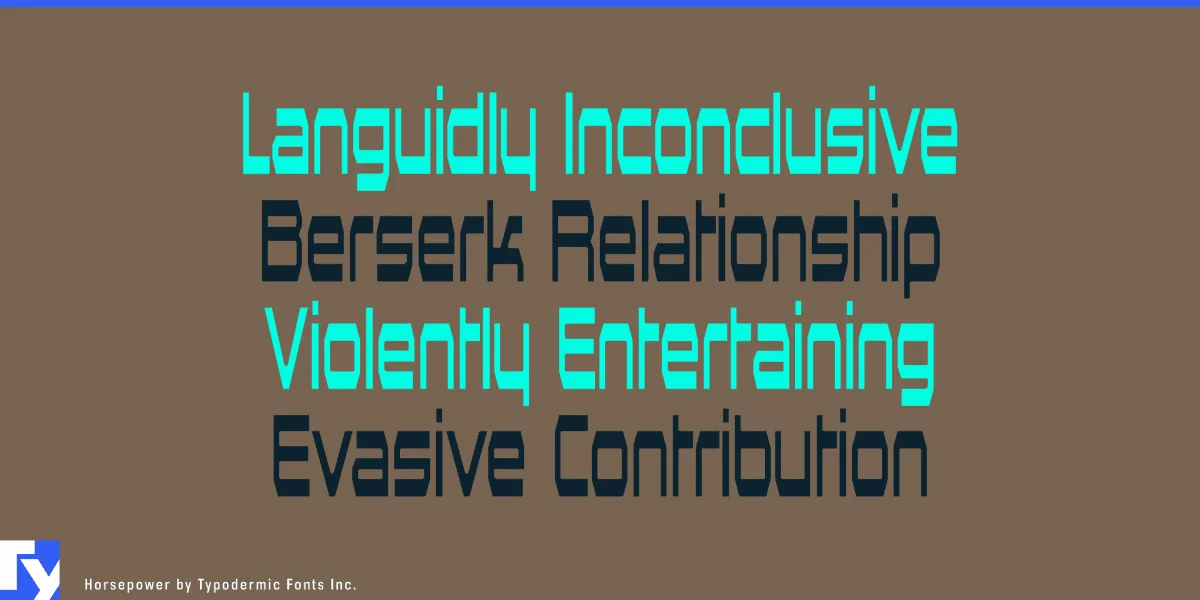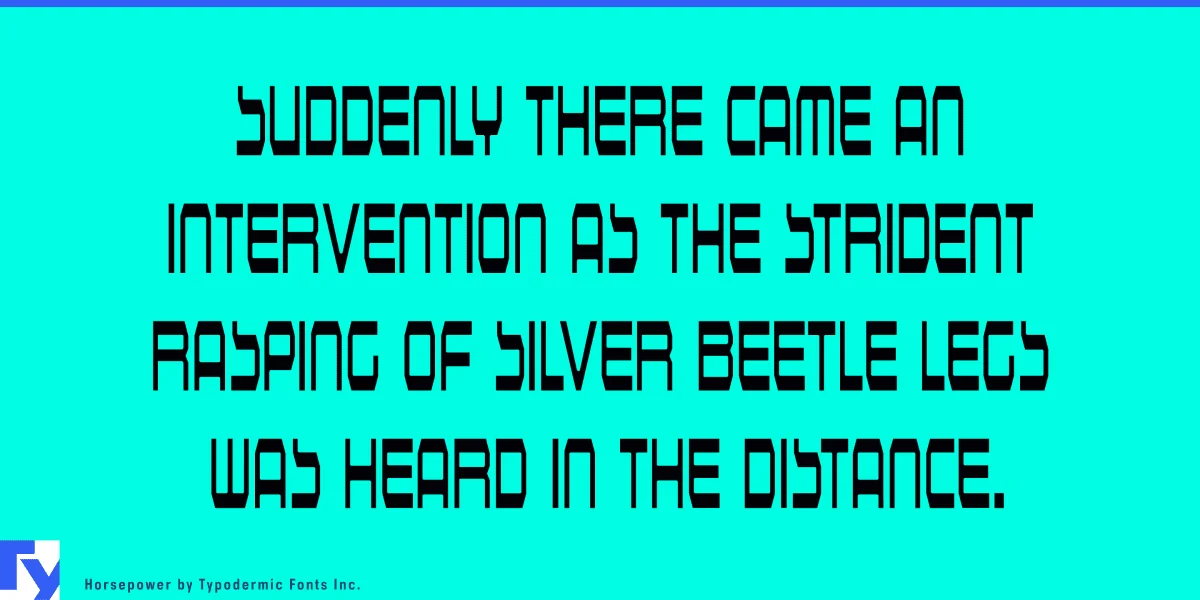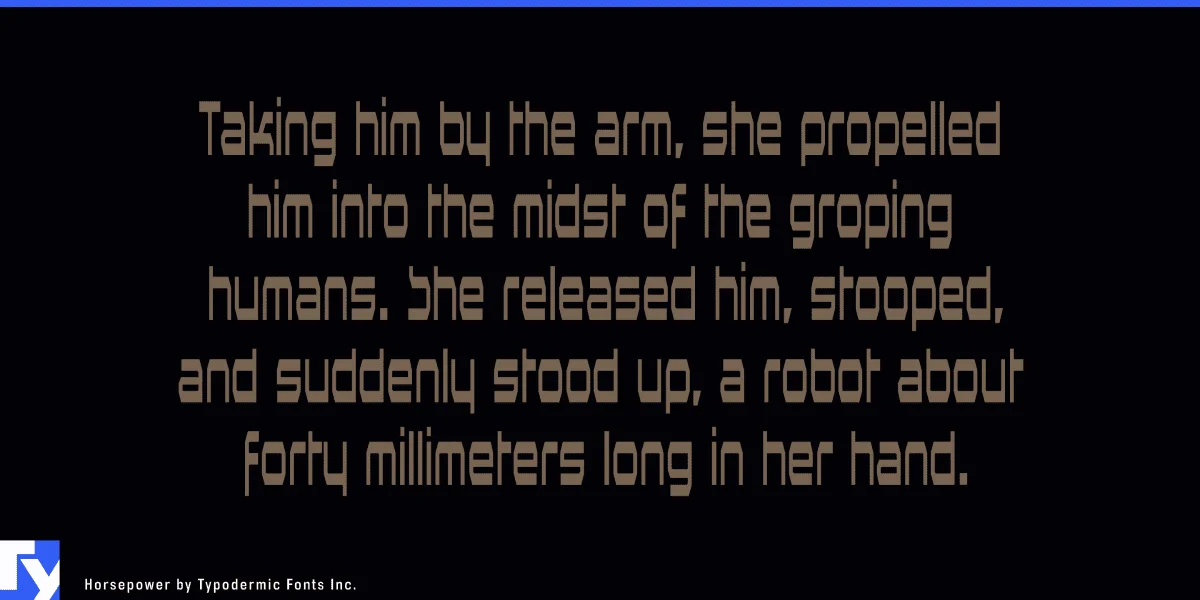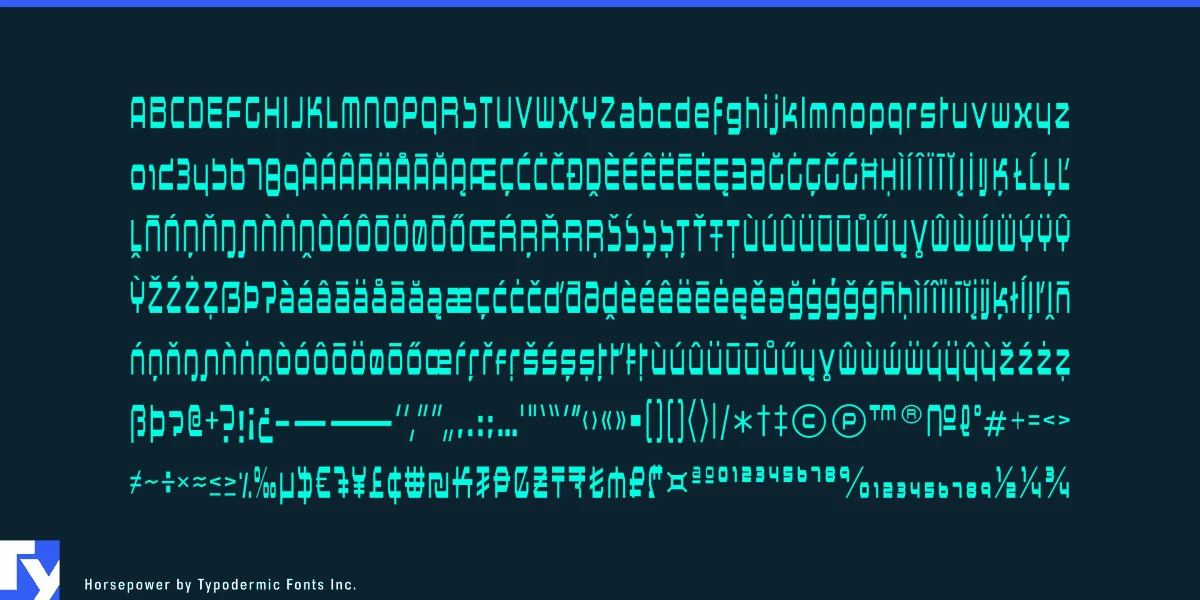
Horsepower is a technological display typeface with a striking appearance. This advanced alphabet will provide a perception of precision and an element of extraterrestrial enchantment to your message. Most Latin-based European writing systems are supported, including the following languages. Afaan Oromo, Afar, Afrikaans, Albanian, Alsatian, Aromanian, Aymara, Bashkir (Latin), Basque, Belarusian (Latin), Bemba, Bikol, Bosnian, Breton, Cape Verdean, Creole, Catalan, Cebuano, Chamorro, Chavacano, Chichewa, Crimean Tatar (Latin), Croatian, Czech, Danish, Dawan, Dholuo, Dutch, English, Estonian, Faroese, Fijian, Filipino, Finnish, French, Frisian, Friulian, Gagauz (Latin), Galician, Ganda, Genoese, German, Greenlandic, Guadeloupean Creole, Haitian Creole, Hawaiian, Hiligaynon, Hungarian, Icelandic, Ilocano, Indonesian, Irish, Italian, Jamaican, Kaqchikel, Karakalpak (Latin), Kashubian, Kikongo, Kinyarwanda, Kirundi, Kurdish (Latin), Latvian, Lithuanian, Lombard, Low Saxon, Luxembourgish, Maasai, Makhuwa, Malay, Maltese, Māori, Moldovan, Montenegrin, Ndebele, Neapolitan, Norwegian, Novial, Occitan, Ossetian (Latin), Papiamento, Piedmontese, Polish, Portuguese, Quechua, Rarotongan, Romanian, Romansh, Sami, Sango, Saramaccan, Sardinian, Scottish Gaelic, Serbian (Latin), Shona, Sicilian, Silesian, Slovak, Slovenian, Somali, Sorbian, Sotho, Spanish, Swahili, Swazi, Swedish, Tagalog, Tahitian, Tetum, Tongan, Tshiluba, Tsonga, Tswana, Tumbuka, Turkish, Turkmen (Latin), Tuvaluan, Uzbek (Latin), Venetian, Vepsian, Võro, Walloon, Waray-Waray, Wayuu, Welsh, Wolof, Xhosa, Yapese, Zapotec Zulu and Zuni.